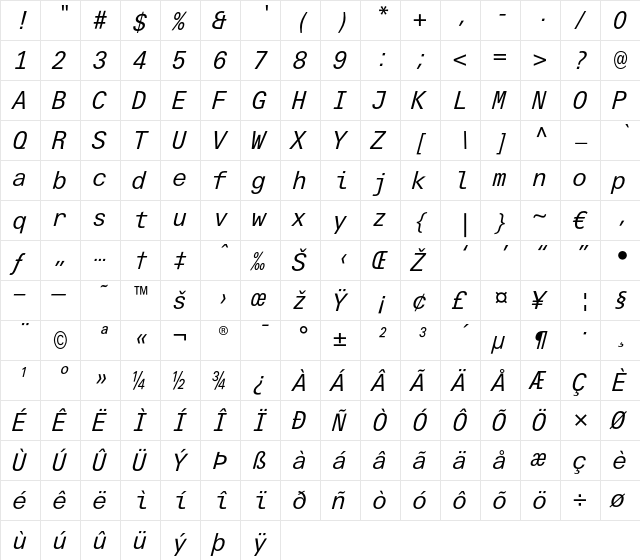
LTUnivers Typewriter Italic
Design Context for LTUnivers Typeface
LTUnivers uses fixed-width spacing throughout, giving it the structured, systematic character associated with coding environments and technical documentation. The slanted form adds forward momentum and visual energy.